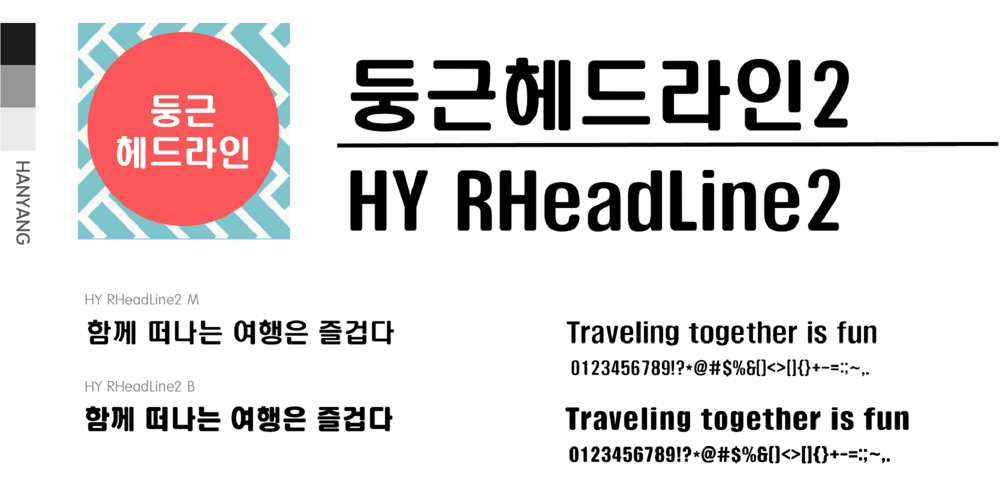
HY RHeadLine2 Font Family was designed by font hy and published by HY Font. HY RHeadLine2 contains 2 styles and family package options. The text lines are full with no space at the top and bottom, so the size of the grapheme is large. You can feel the uniform width when typesetting with a full-width font.Due to the narrow character width, the difference in width and height is large to secure internal space.